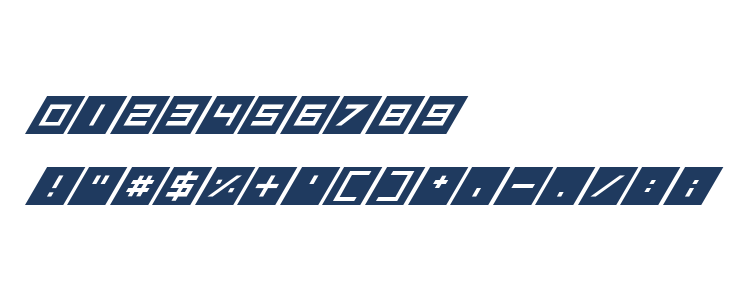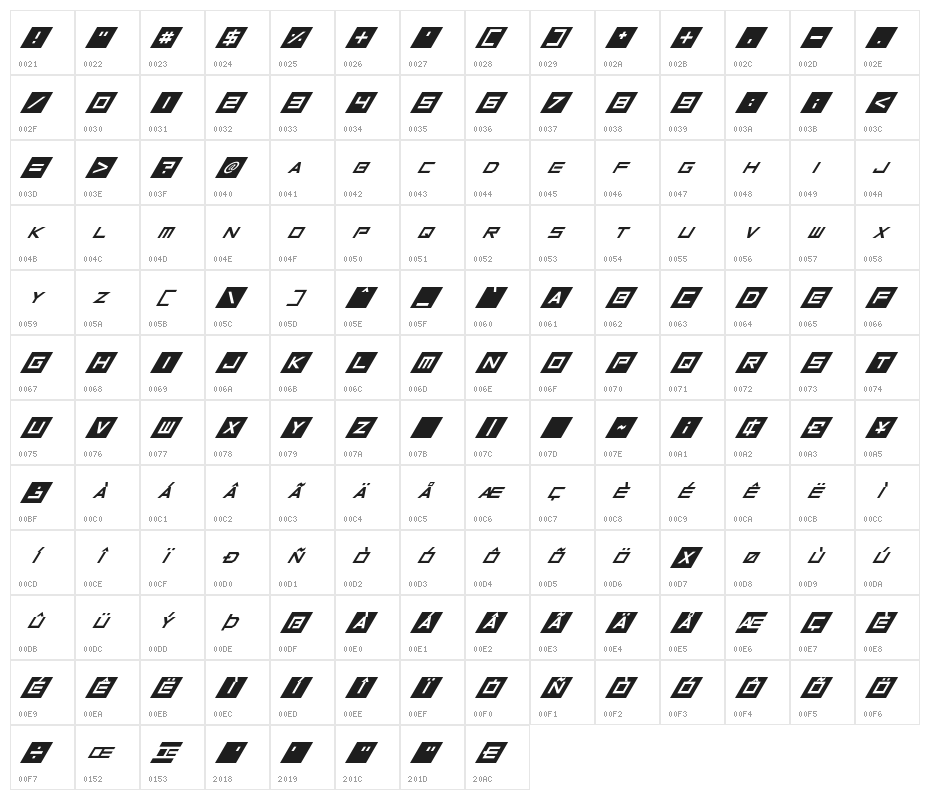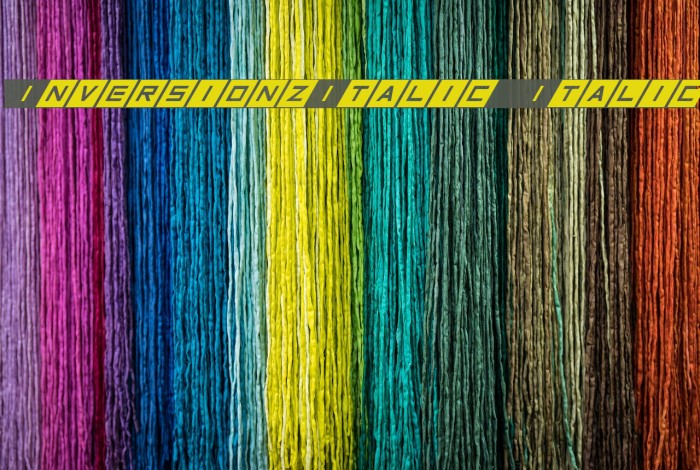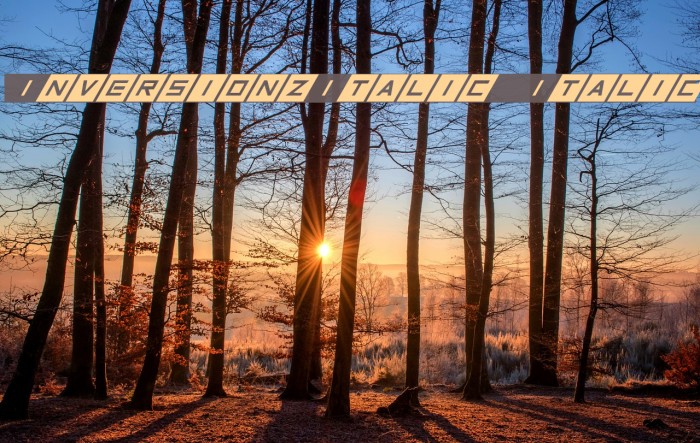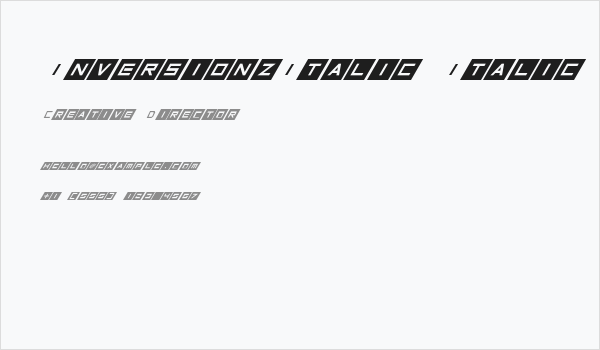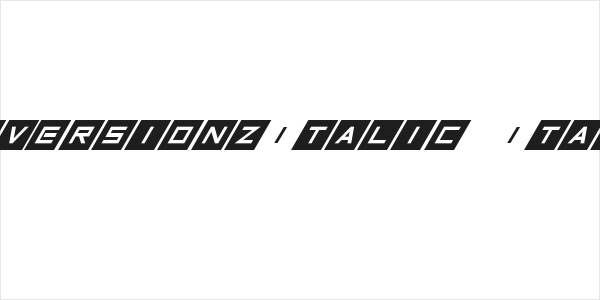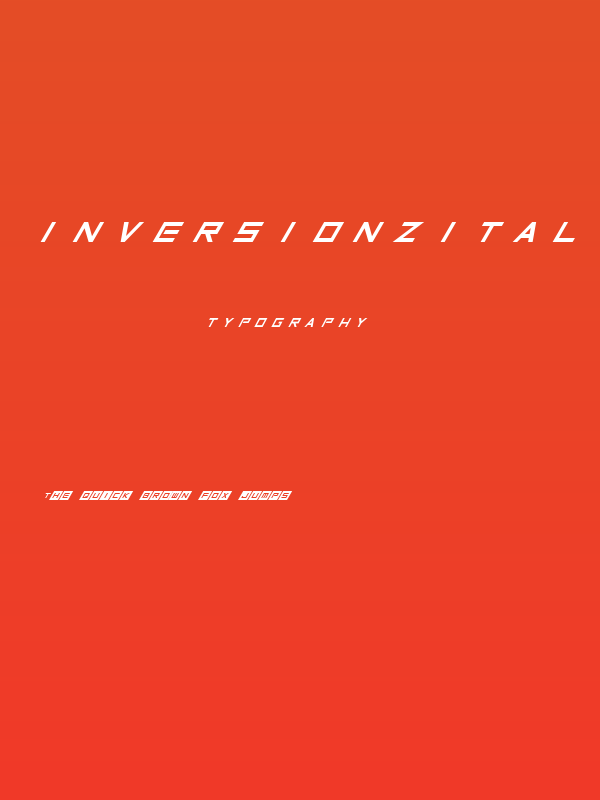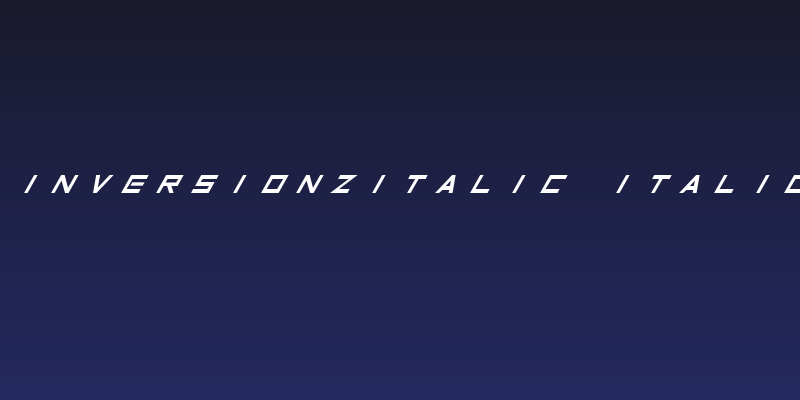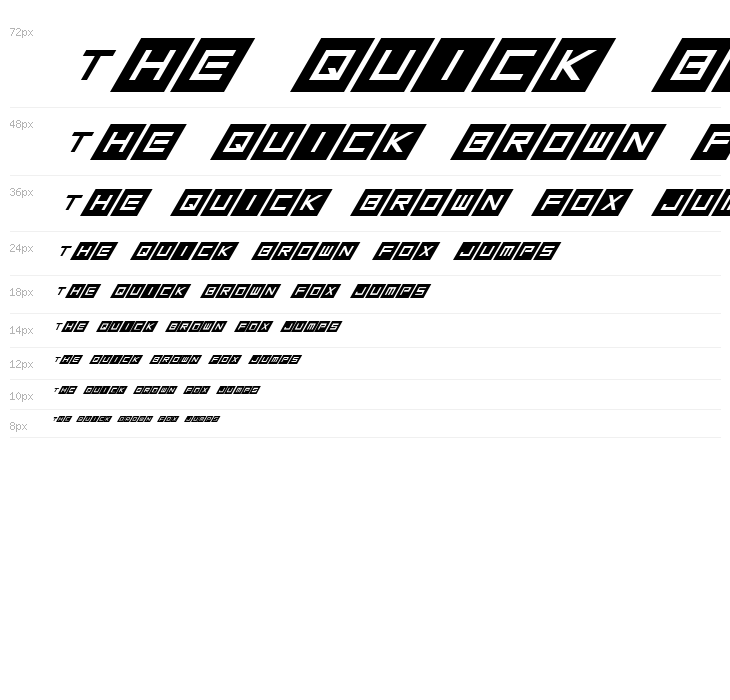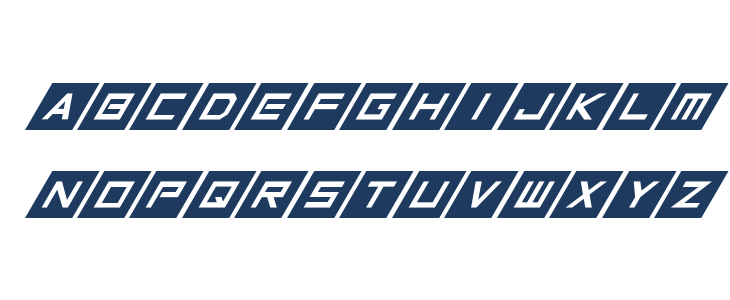
InversionzItalic Italic Font
InversionzItalic Italic Description
This font features a dynamic and futuristic design with a distinct italic slant, giving it a sense of motion and speed. The characters are angular and geometric, with sharp edges and a consistent slant that adds to its modern aesthetic. The uppercase and lowercase letters maintain a uniform style, while the numbers and special characters are designed to match the overall theme. The bold weight of the font enhances its presence, making it suitable for attention-grabbing headlines or logos. The spacing between characters is tight, which contributes to its compact and cohesive appearance.
| Proposed Projects | Ideal for projects requiring a modern and energetic look, such as tech branding, sports team logos, or sci-fi themed designs. |